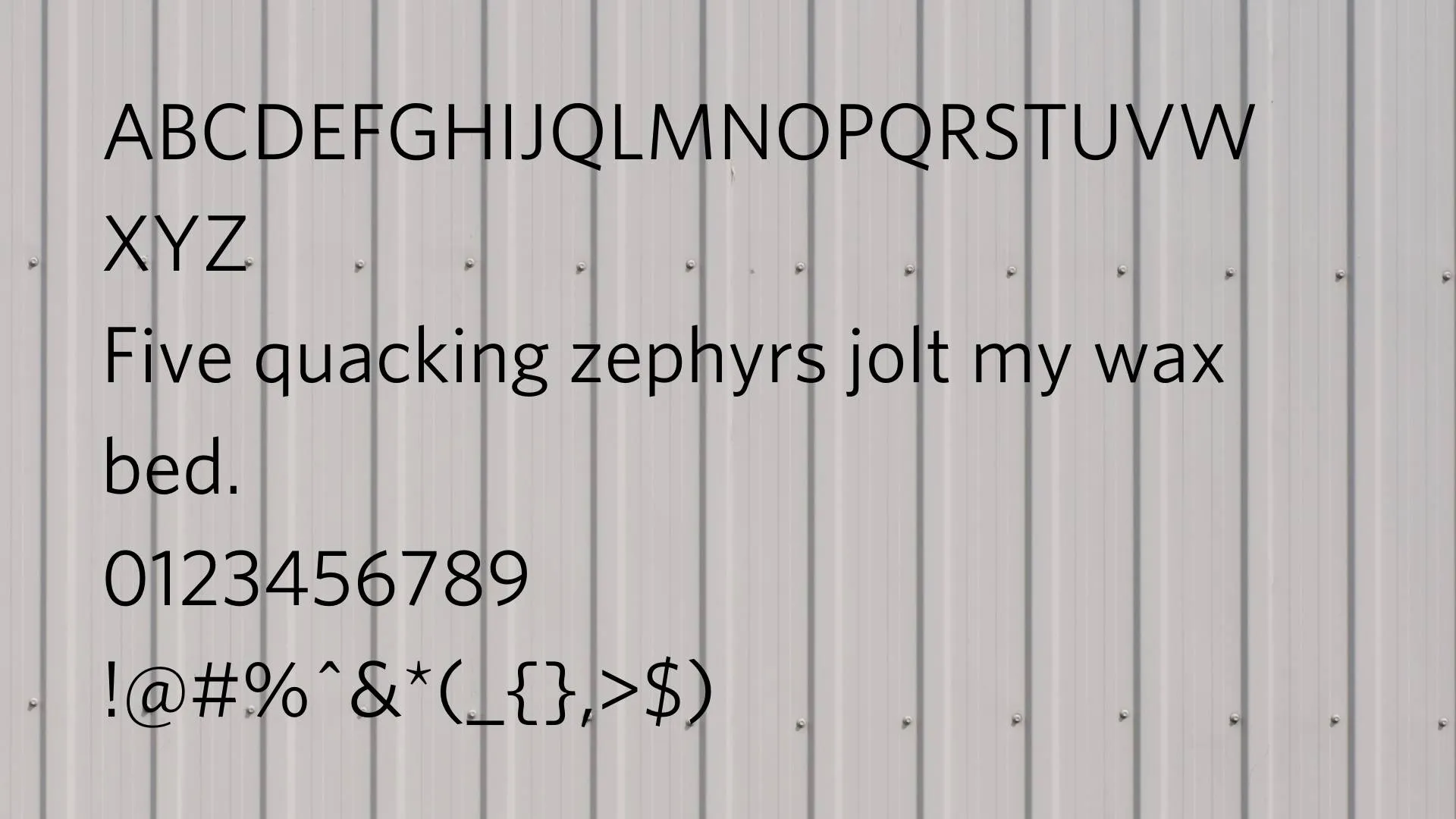
In this article, we’re showcasing a humanist sans serif typeface named Whitney font, which was crafted by Tobias Frere-Jones and launched in 2004 via Hoefler & Frere-Jones. Its original conception was for institutional use by New York’s Whitney Museum. Essentially, it was designed for use in signages and editorial work, striving to harmonize the differences between humanist typefaces like Frutiger and Gothic ones like Franklin Gothic font.
This typeface is a comprehensive typeface that includes italics, Romans, italic small caps, and roman small caps. It comes in 6 weights including regular, italic, book, medium, light, and bold, each and every weight comprises extended symbols, and tabular figures fractions, extended icons, all case letters, basic punctuations, stylistic alternatives, and mathematical operators. If you are looking for a bold typeface that should have a matching personality also then try and combine the typeface with Verdana Font.
Usage of Whitney Font
There are numerous notable places where is highly used this staggering typeface. It is featured on the Discard that is an instant and distribution platform. Another popular American multinational Entertainment and media called The Walt Disney Company that has been using this typeface for different purposes. It has been also used on Boston based private research University that is a world-famous university.
So, you can also apply this typeface to your different types of designs such as logos, posters, book covers, signage, editorials, publishing, promotions projects, business cards, social media platforms, webpages, emblems, banners, brochure layouts, advertising, Powerpoint presentations, as well as texture contents such as long or short paragraphs, headlines, reports, articles, post descriptions and many more.
Name | Whitney Font |
Designer | Hoefler & Frere-Jones |
Style | Sans serif |
What is similar to Whitney font?
You can find many similar typefaces on the Internet but we suggest you use Adelle Font and Today Sans font that are very close to this typeface.
What font is Whitney?
This is an excellent humanist sans serif typeface that comes in 6 weights from regular to book. This amazing sans serif was created by Tobias Frere-Jones and published in 2004 by Hoefler & Frere-Jones.